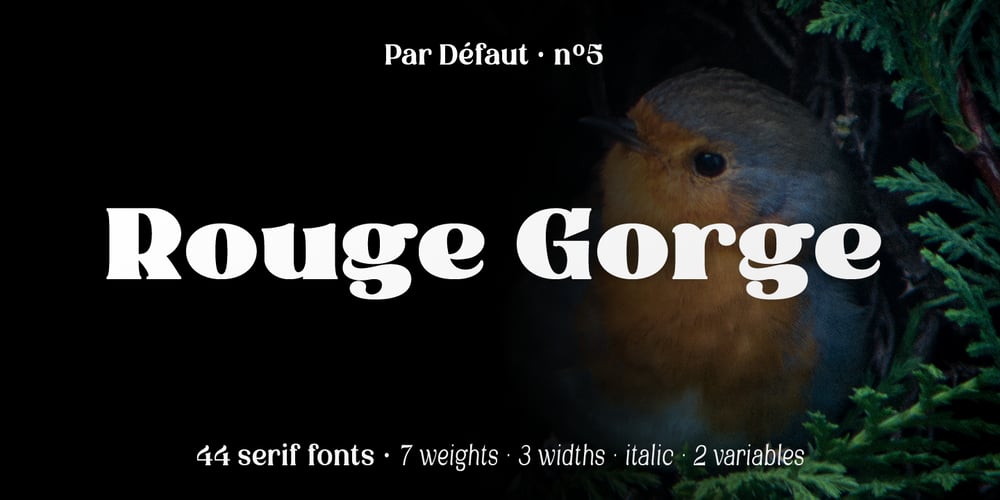
Rouge Gorge Font Family was designed by Nathanaël Dorange and published by Par Défaut. Rouge Gorge contains 44 styles and family package options. Rouge Gorge is a Serif Font (Regular, Italic, Semi-Condensed, Condensed and Variable)The font also has 7 OpenType features :(All access Alternative (aalt) – Fraction (frac) – Numerator (numr) – Denominator (dnom) – Old Style (onum) – Kerning (kern)